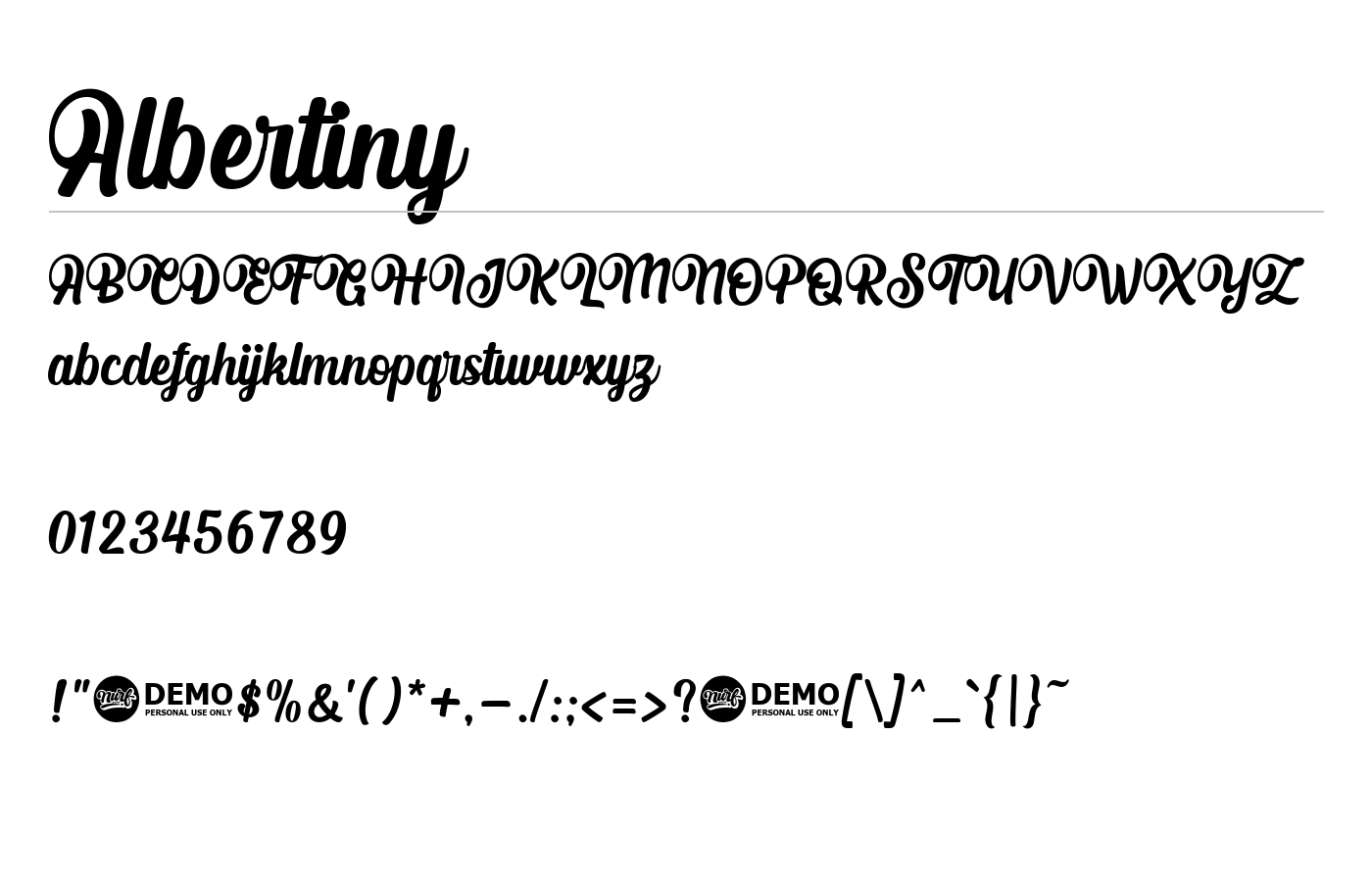
Albertini is a bold, script-style font with a smooth, flowing design that feels friendly and approachable. Its rounded strokes and slightly condensed letterforms make it ideal for adding a personal, handcrafted touch to logos, packaging, and headlines, especially where a lively yet polished look is desired. This font works well for brands aiming to convey warmth and creativity while maintaining clear readability.
Albertini Font
About Albertini Font